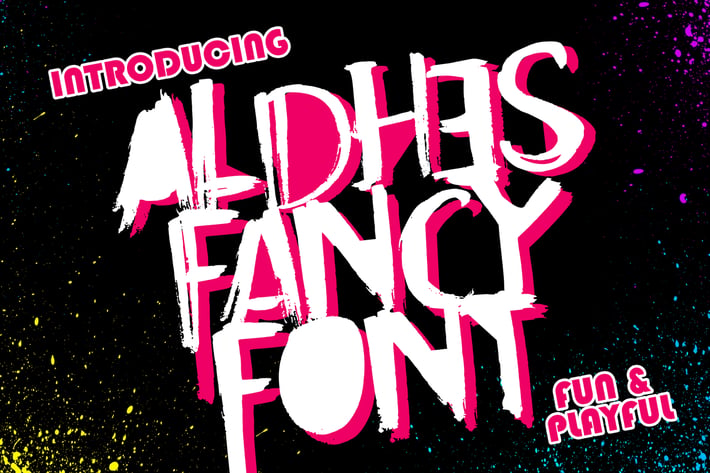
Aldhes Fancy Font
Hi Guys ! This is Aldhes font. We made it with fun, so you can look closely that this font is so young, better for music poster, logo, advertisement, clothing, and many other fun project.